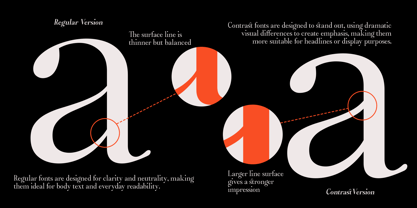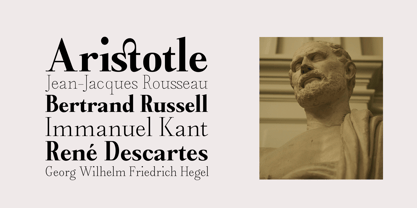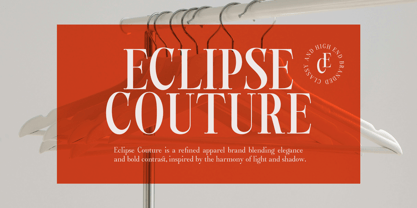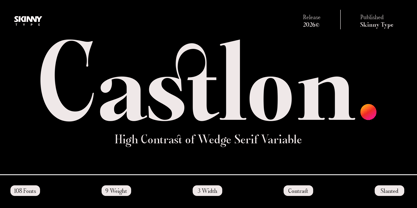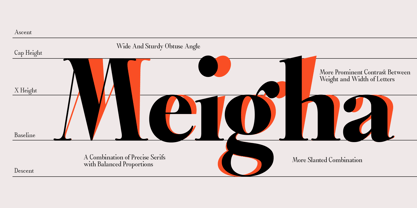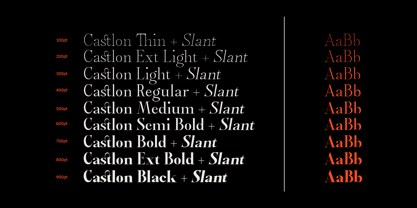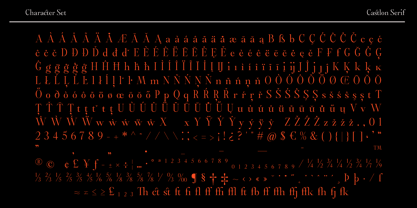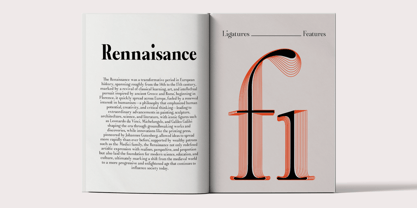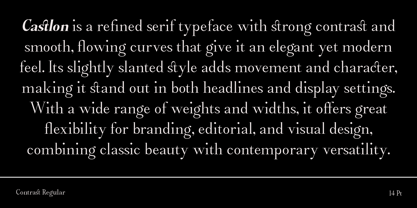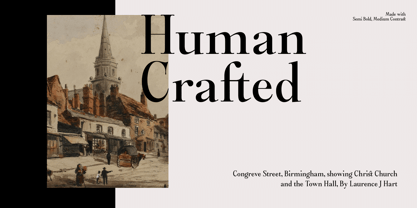
Castlon
The Castlon Font Family was designed by Muhajir and published by Skinny Type. Castlon contains 109 styles and family package options. More about this family
Castlon is a typeface featuring a high-contrast serif construction characterized by sharply defined wedge serifs and a refined, contemporary proportioning system. Its letterforms exhibit a clear modulation between thick and thin strokes, creating a dynamic visual rhythm while maintaining structural clarity and legibility. Its design conveys a highly sophisticated and editorial tone, making it well-suited for premium branding, fashion-oriented compositions, and high-impact display settings. Furthermore, its variable font architecture allows for a wide range of expressive flexibility across weights and widths, enabling nuanced typographic articulation without compromising a cohesive aesthetic identity. In terms of character set, this typeface offers comprehensive multilingual support, including an extended Latin alphabet, uppercase and lowercase letters, numerals, punctuation, and glyphs to accommodate a wide spectrum of European languages. It also includes a carefully selected selection of symbols and diacritics, ensuring flexibility across editorial and branding applications. The OpenType feature set is robust and thoughtfully implemented, incorporating stylistic alternates, optional ligatures, and standard ligatures to enhance the typographic texture. Additional features such as small caps, old-style numerals, marching numerals, tabular numerals, and contextual alternates provide further control and refinement in composition. The inclusion of case-sensitive forms and localized glyph substitutions ensures typographic accuracy across a wide range of linguistic and design contexts, reinforcing this typeface's role as a sophisticated and adaptable display system.
Castlon